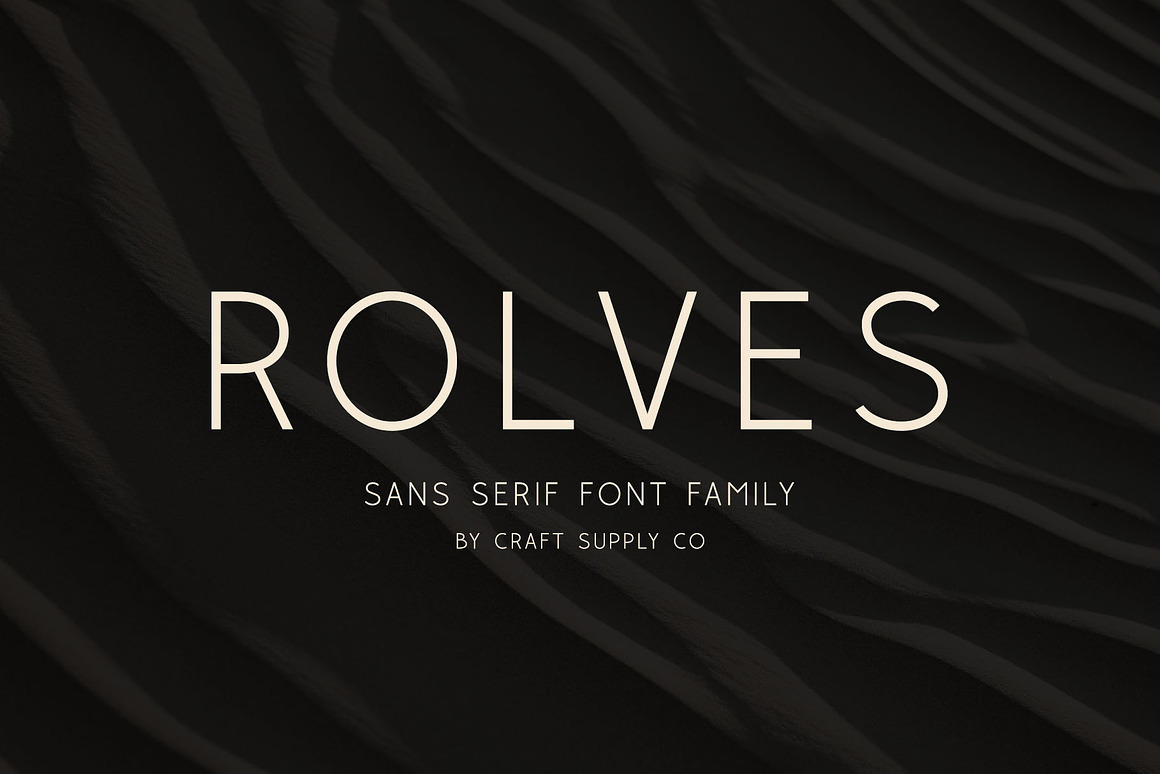
Rolves - Sans Serif Font Family
Rolves - Sans Serif Font Family is perfect for modern corporate branding, tech startup identities, clean website interfaces, contemporary product packaging, architectural firm logos, minimalist editorial layouts, professional business communications, and sophisticated digital applications. This versatile typeface excels in applications where clarity and modern professionalism are essential for creating trustworthy and accessible brand experiences.
What makes Rolves - Sans Serif Font Family truly exciting is its perfect balance of geometric precision and humanist warmth that creates an approachable yet authoritative presence. The font features clean, well-proportioned letterforms with subtle character details that ensure exceptional legibility across all sizes and media platforms. Its contemporary aesthetic and neutral personality make it incredibly versatile, allowing it to adapt seamlessly to various brand contexts while maintaining its distinctive identity. The typeface's systematic design approach and comprehensive weight range demonstrate meticulous attention to typographic excellence and functional design principles.
The Rolves - Sans Serif Font Family includes extensive weight range from Thin to Black, complemented by matching italic versions that enhance its expressive capabilities. The font offers comprehensive OpenType features including multiple figure styles, small capitals, contextual alternates, and broad multilingual character support. Additional stylistic sets and ligatures provide designers with flexible tools for creating custom typography solutions and distinctive brand applications across diverse international markets.